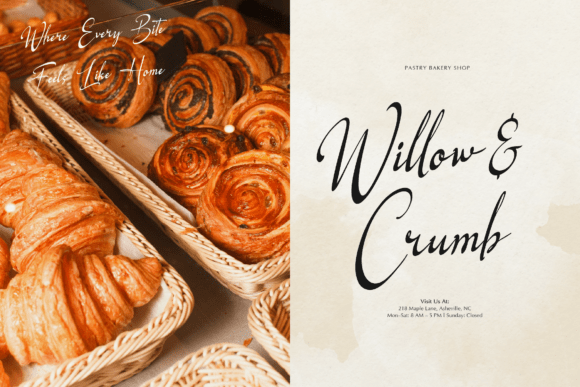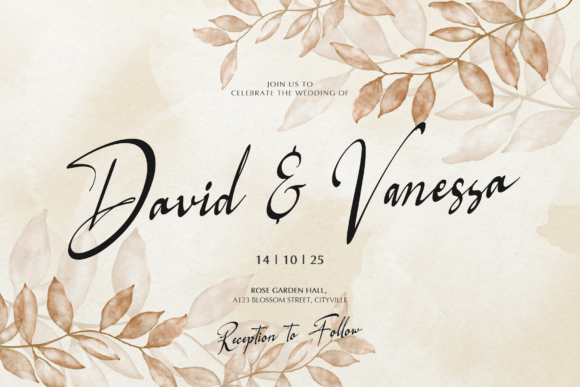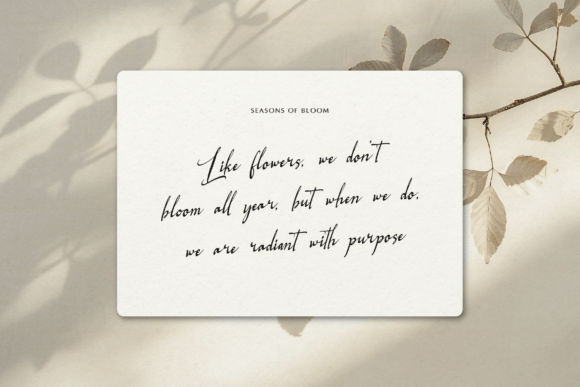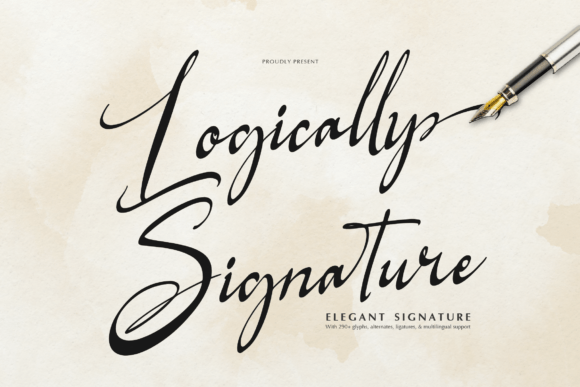
Introduction to Logically Signature Font
Logically Signature is a refined and flowing script font designed to mimic authentic handwritten signatures.
With over 290 glyphs, stylish alternates, and multilingual support, it’s the perfect choice for logos, branding, elegant packaging, and business cards .
Key Features of Logically Signature Font
Why Choose Logically Signature Font?
Logically Signature Font offers exceptional quality and versatility, making it a valuable addition to your design toolkit. Whether you’re creating for personal projects or commercial use, Logically Signature Font delivers professional results.